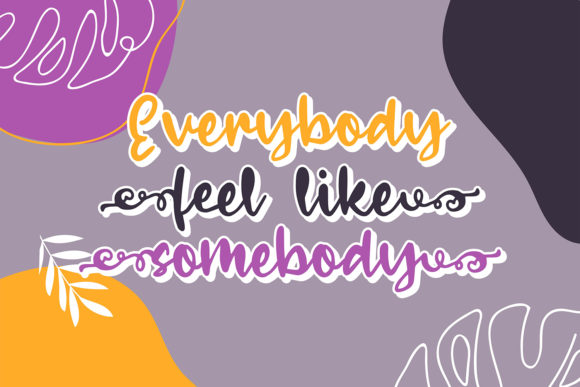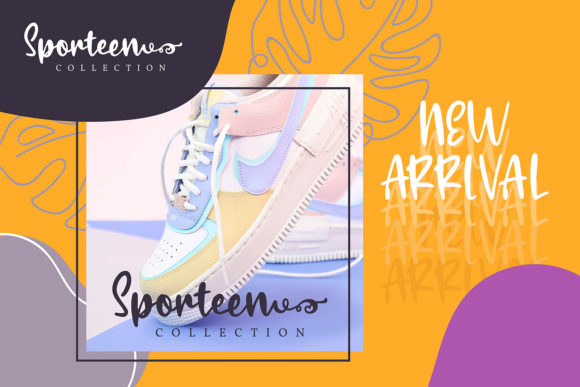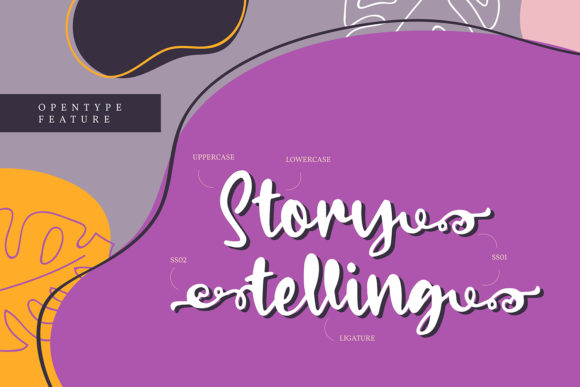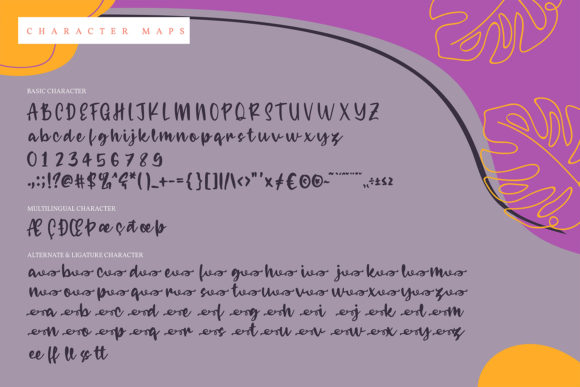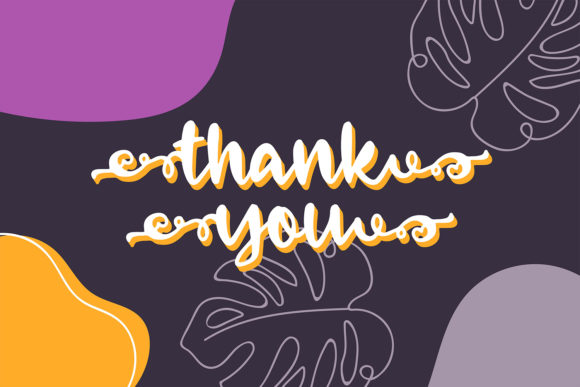
Navilla Font
About Navilla Font
Navilla is a stylish and graceful script font that exudes elegance and sophistication. With its beautiful and flowing letterforms, this font adds a touch of refinement to any design project. Whether you’re creating wedding invitations, thank you cards, quotes, greeting cards, logos, or business cards, Navilla brings a personalized and ravishing touch to your designs.
One of the standout features of Navilla is its versatility. It seamlessly blends with various design styles and themes, making it suitable for both formal and informal projects. The font’s stylish and graceful characters create a harmonious and balanced visual impact, allowing your designs to captivate with their beauty and charm.
With its PUA encoding, Navilla provides easy access to a wide range of glyphs and swashes. These additional characters and decorative elements allow you to customize and embellish your designs, adding a personalized flair. From elegant ligatures to stylish alternates and swashes, the PUA encoding ensures that you can effortlessly explore the various design possibilities that Navilla offers, allowing you to create truly unique and eye-catching compositions.
In summary, Navilla is a stylish and graceful script font that adds a touch of refinement and sophistication to your designs. Its versatility and ease of access to glyphs and swashes through PUA encoding make it an excellent choice for a wide range of projects. Whether you’re designing wedding stationery, logos, or personalized greeting cards, Navilla is sure to elevate your designs and create a lasting impression with its elegance and ravishing beauty.